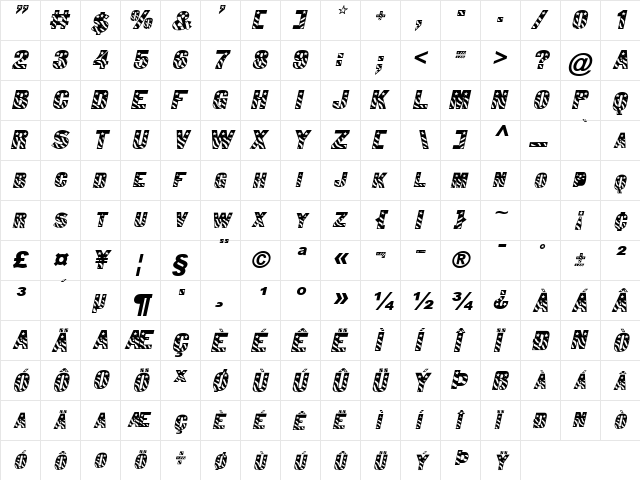
Bunting 1 Italic
Design Context for Bunting 1 Typeface
Bunting 1 is a composed and adaptable typeface that performs quietly and consistently across a wide range of design contexts. The slanted form adds forward momentum and visual energy.
Pro Tip: Use Bunting 1 for emphasis, pull quotes, and subheadings where its slanted energy can add rhythm to the layout.